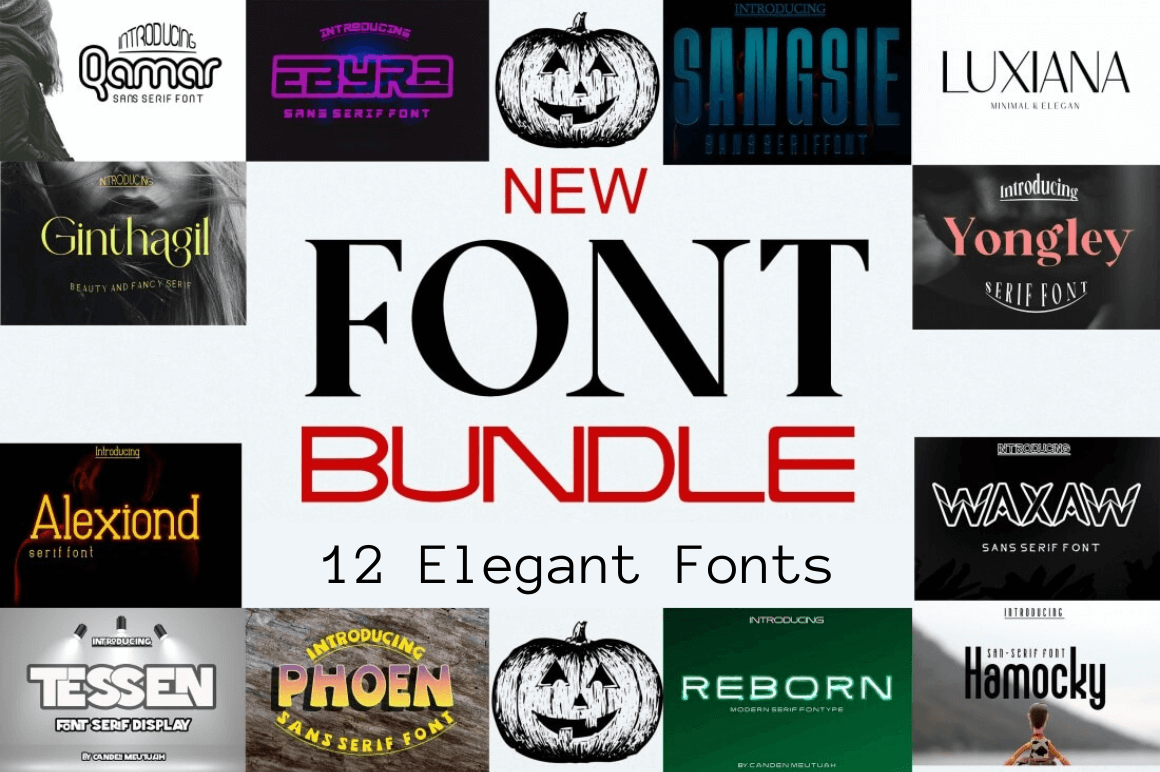
Exclusive: Elegant Font Bundle
Featuring a dozen dashing fonts, from the ethereal Ginthagil serif script to the bubbly 70s-inspired Phoen, this bundle is just the thing to take your next design from ehh… to enthralling. Each of the 12 typefaces comes complete with upper- and lowercase lettering, numbers, full punctuation, and the OTF formatting flexibility we know and love.
With a mix of sans- and serif fonts, in stylings ranging from formal, to modern, to casual, you can elevate any design in an instant. Whether curating the marketing materials for a gallery opening or designing a label for the next local craft brew, the design world is your oyster with this fun bundle!
- Fonts included:
- Alexiond
- Yongley
- Waxaw
- Tessen
- Sangsie
- Phoen
- Luxiana
- Hamocky
- Ginthagil
- Ebyra
- Qamar
- Longle;